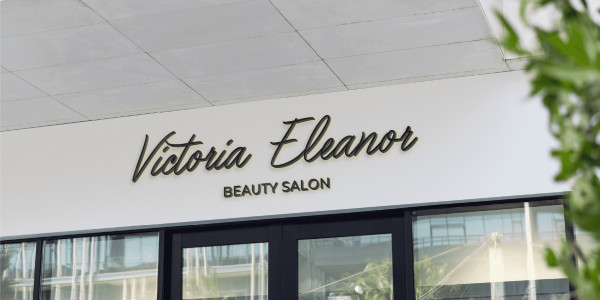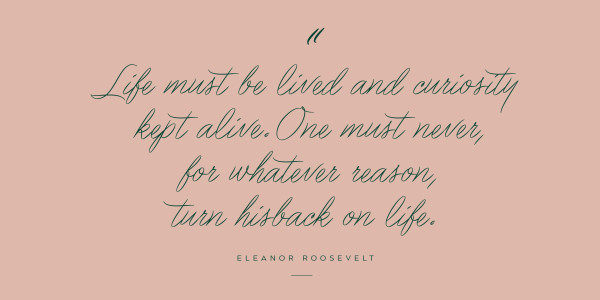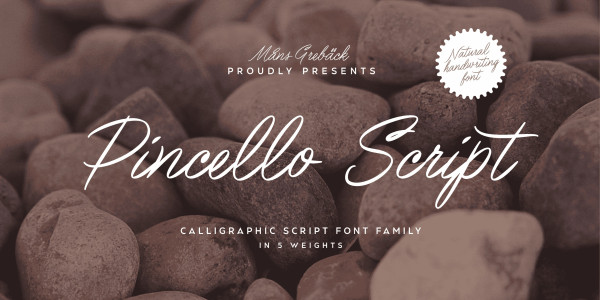
Pincello Script Font
Pincello Script Font is a calligraphic masterpiece that skillfully blends the art of brush painting and handwriting to create a truly charming and captivating font. Its cursive, painted letterforms bring a touch of elegance and personality to your creative projects.